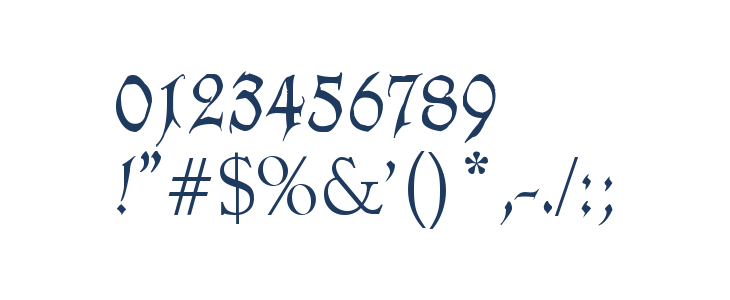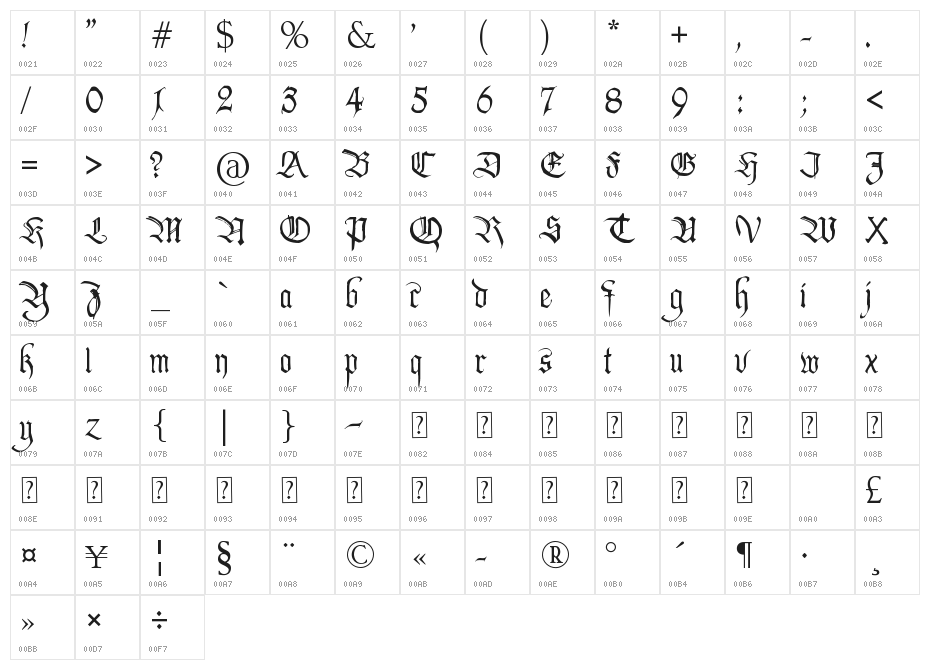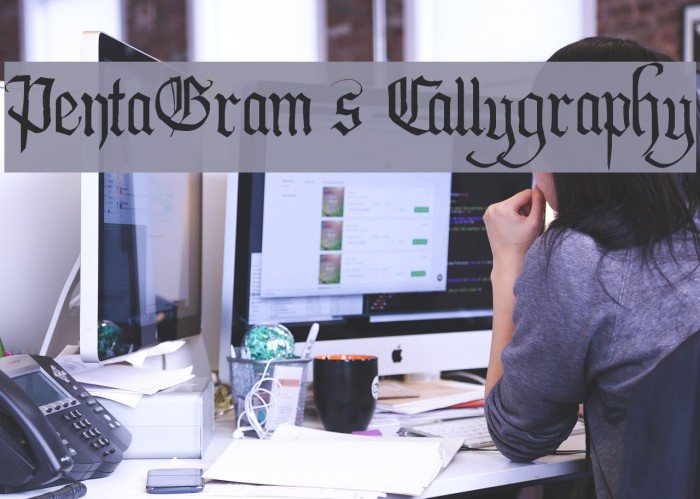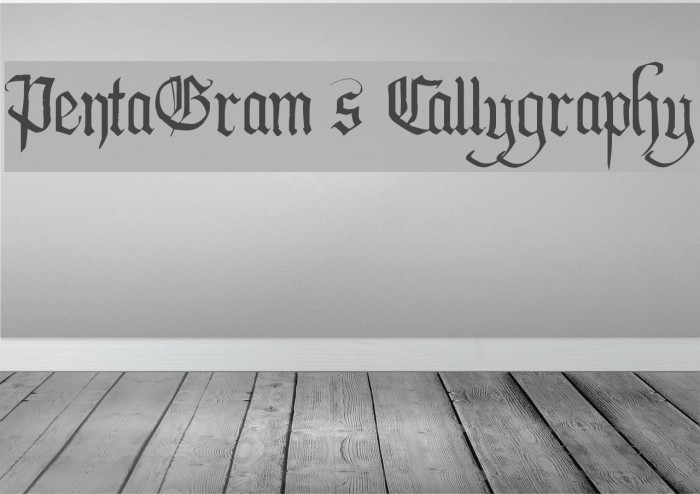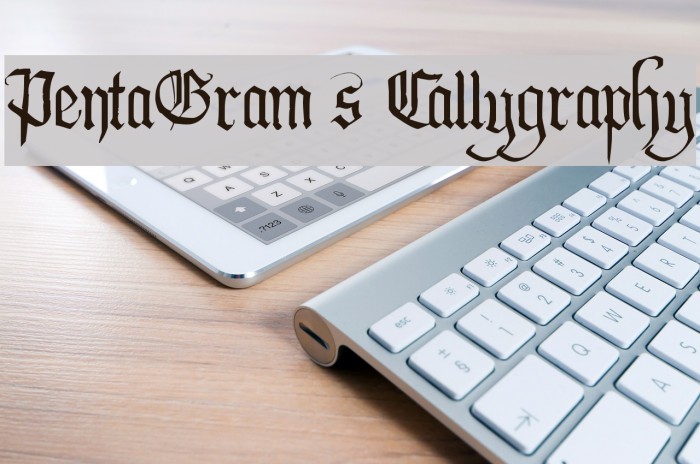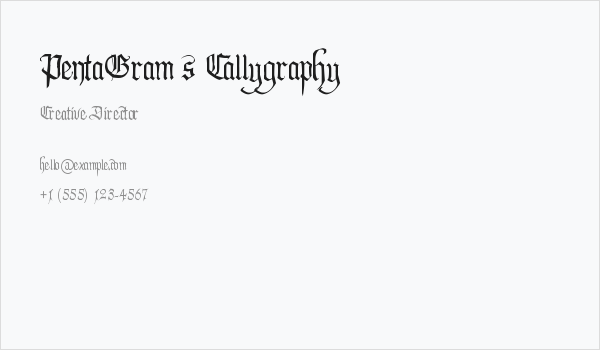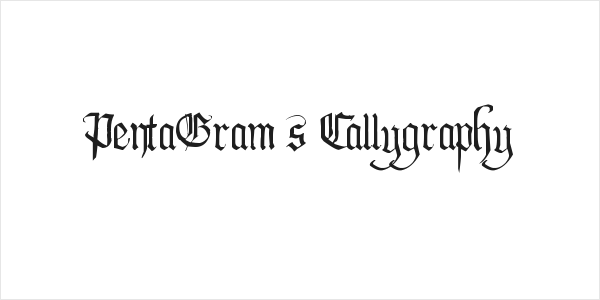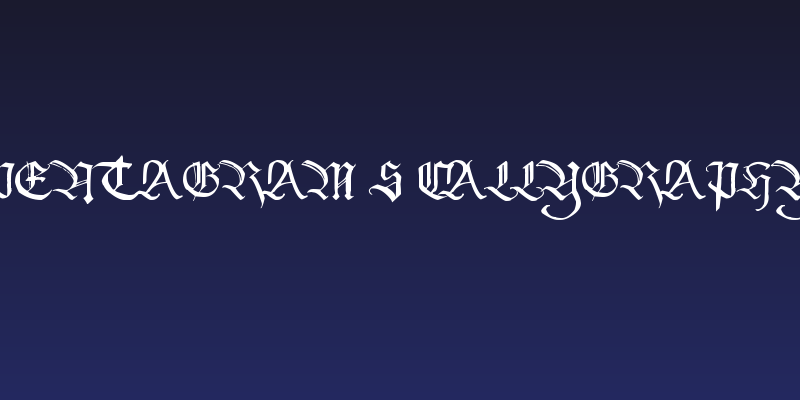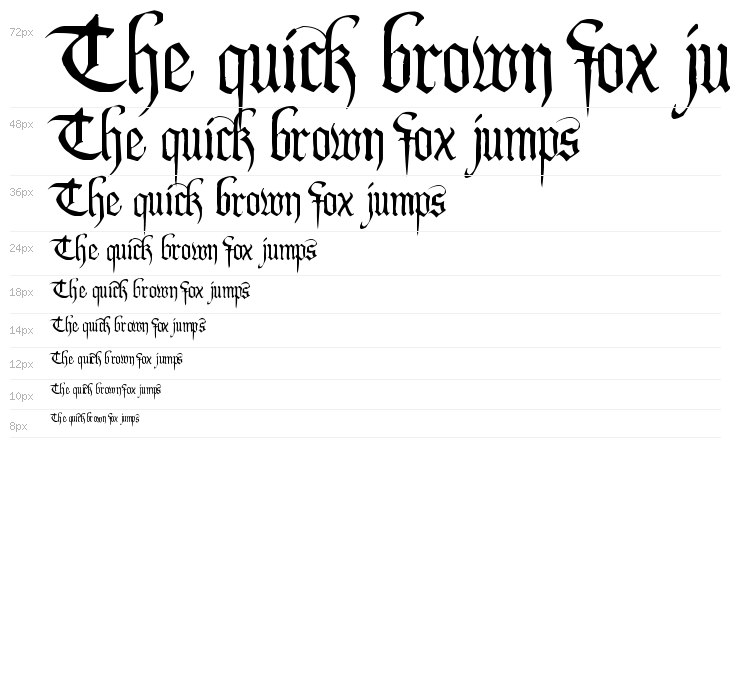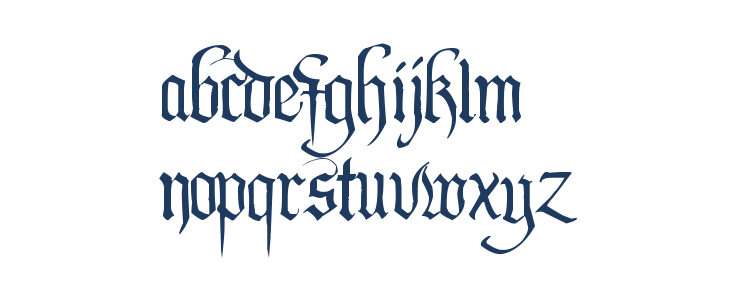
PentaGram s Callygraphy Font
PentaGram s Callygraphy Description
This font exudes a gothic and medieval charm, characterized by its sharp, angular strokes and intricate detailing. The uppercase letters are ornate, with elaborate flourishes that give a sense of historical elegance. The lowercase letters maintain a consistent style, offering a more compact and slightly less embellished appearance. Numbers and special characters follow the same intricate design, ensuring a cohesive look across all elements. The overall aesthetic is reminiscent of traditional calligraphy, making it ideal for projects that require a touch of old-world sophistication.
| Proposed Projects | Ideal for historical themed designs, fantasy book covers, event invitations, or branding that requires a classic, elegant touch. |